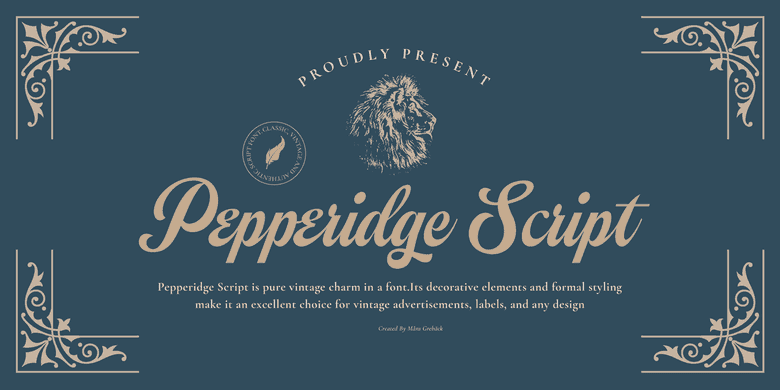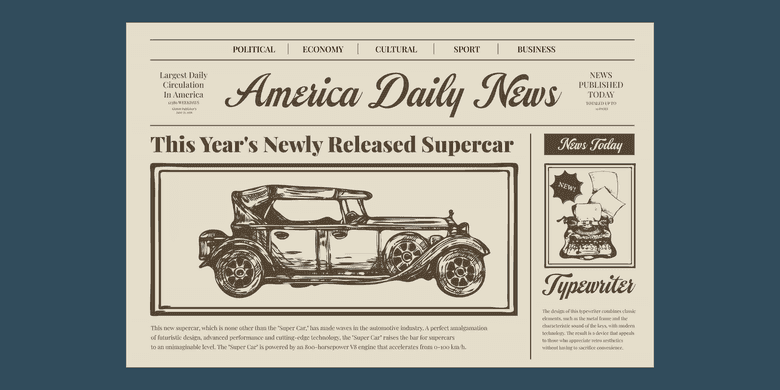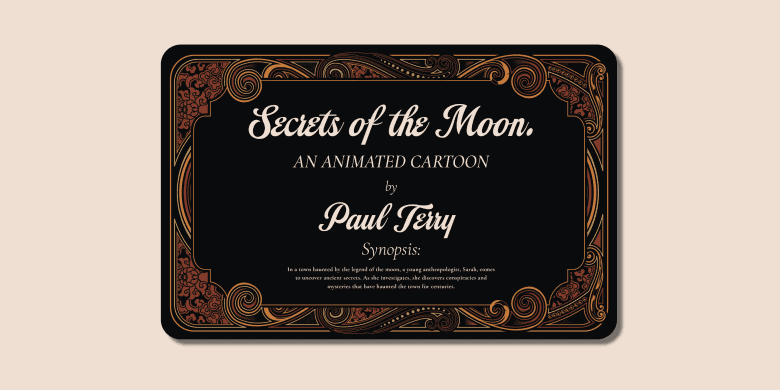
Pepperidge Script is an authentic vintage-style font. Imagine sipping classic cocktails at an old speakeasy while listening to chatter and laughter from yesteryear as this font brings history alive with each press of a key. Use underscores _ to create underlines like Food_Shop; multiple underscores can create different swashes.